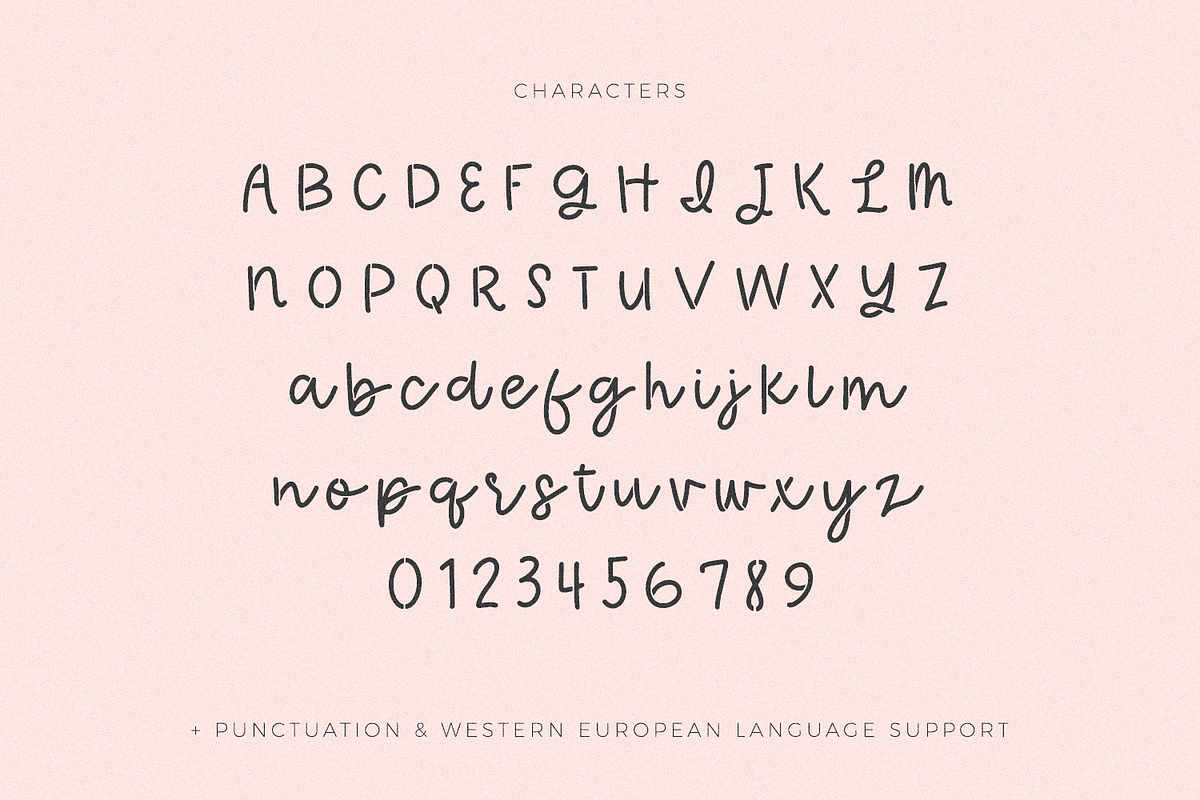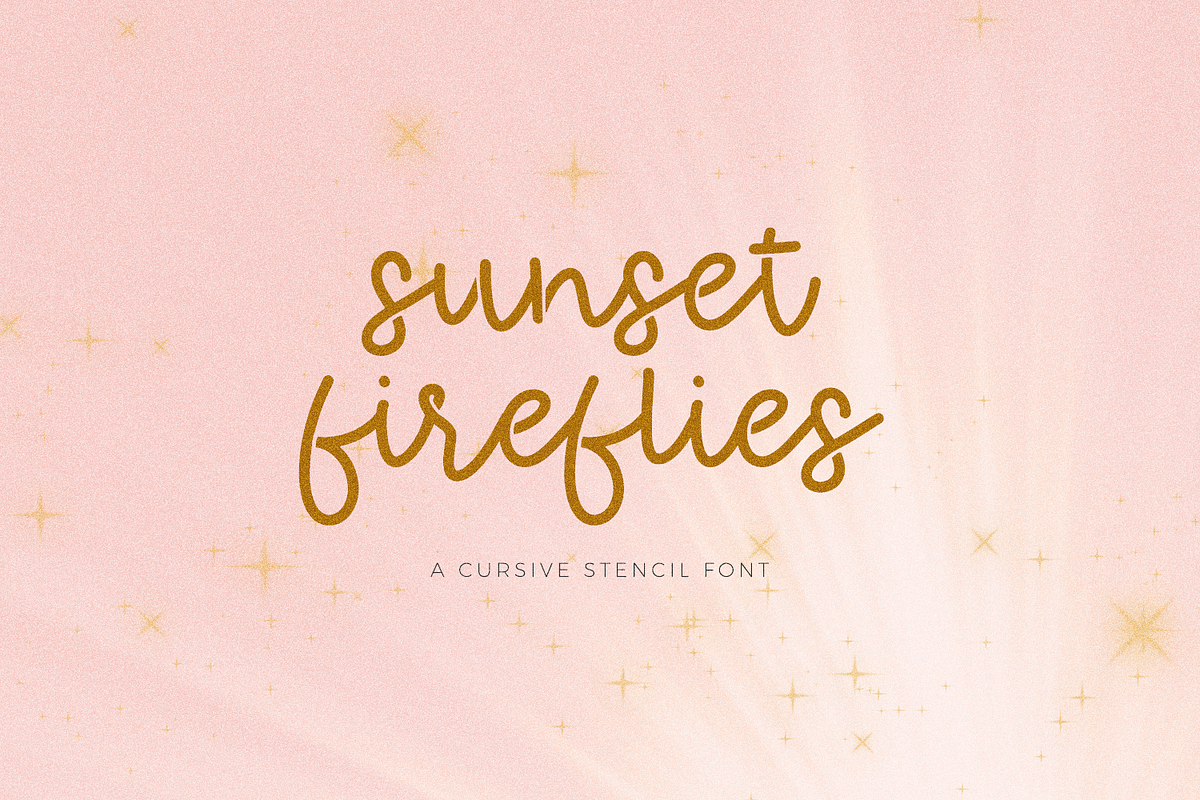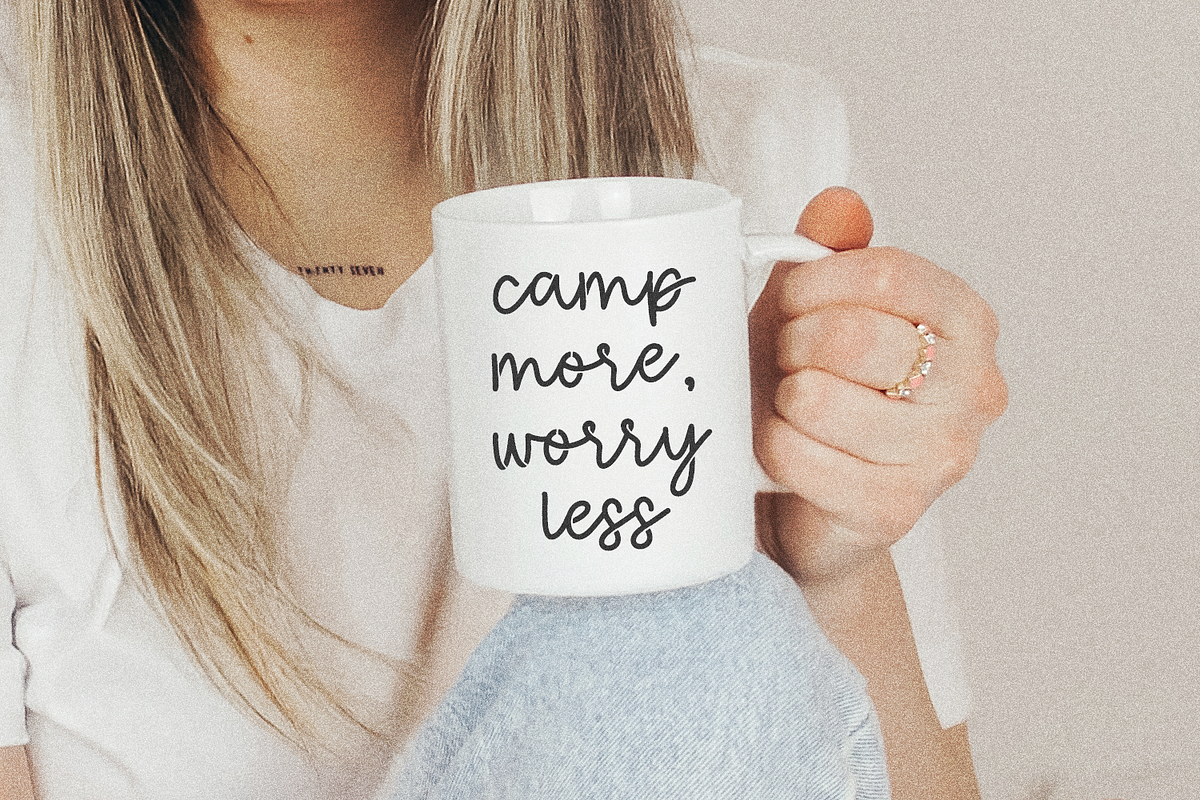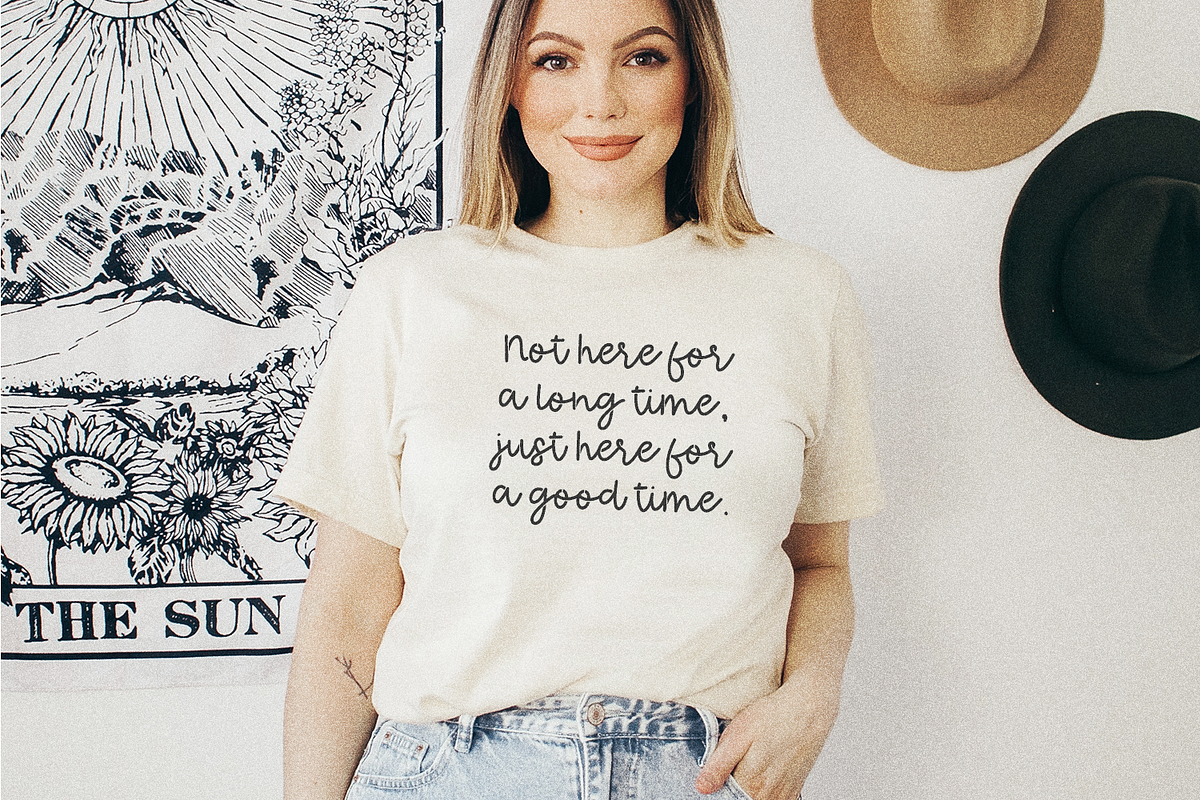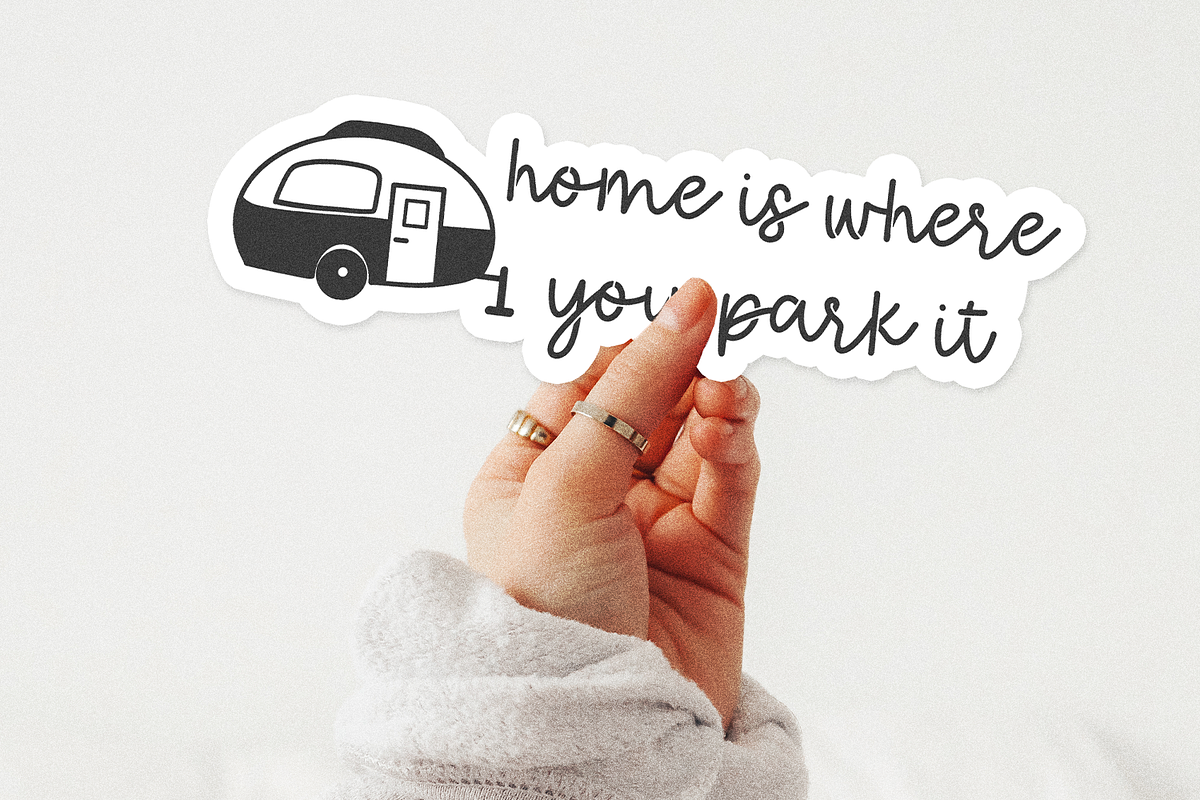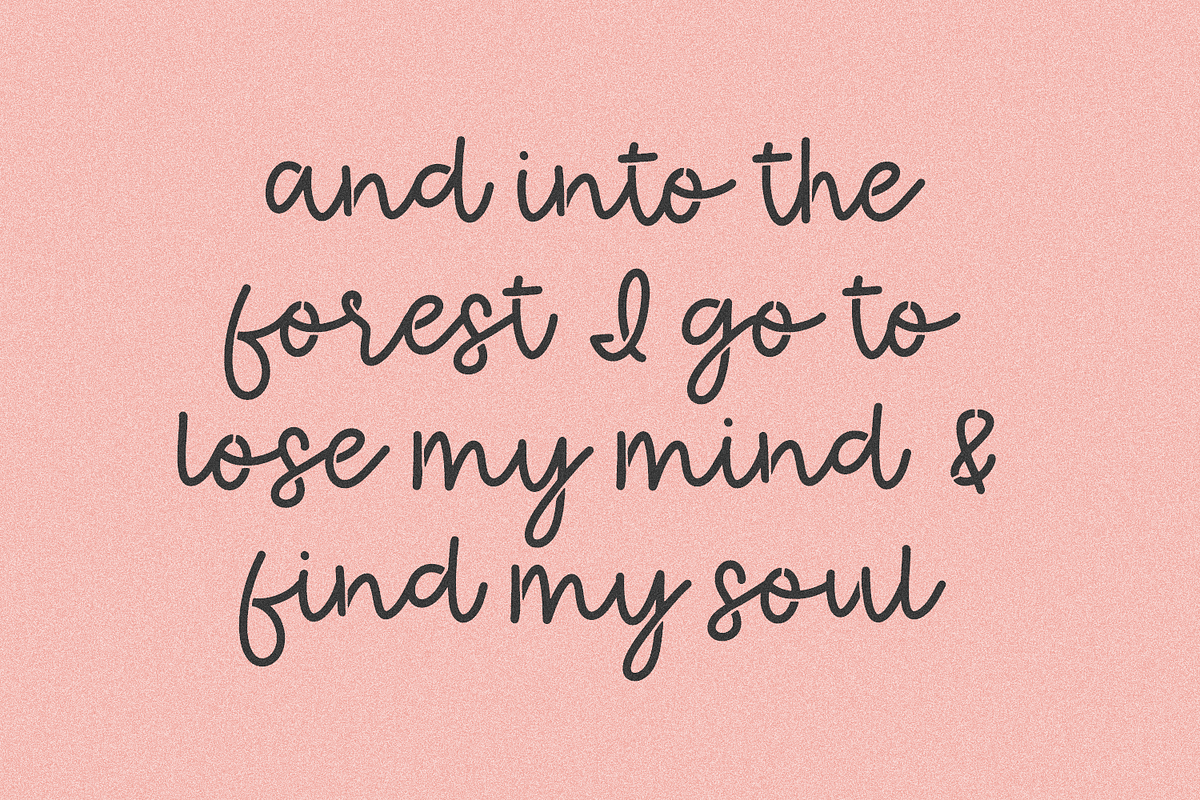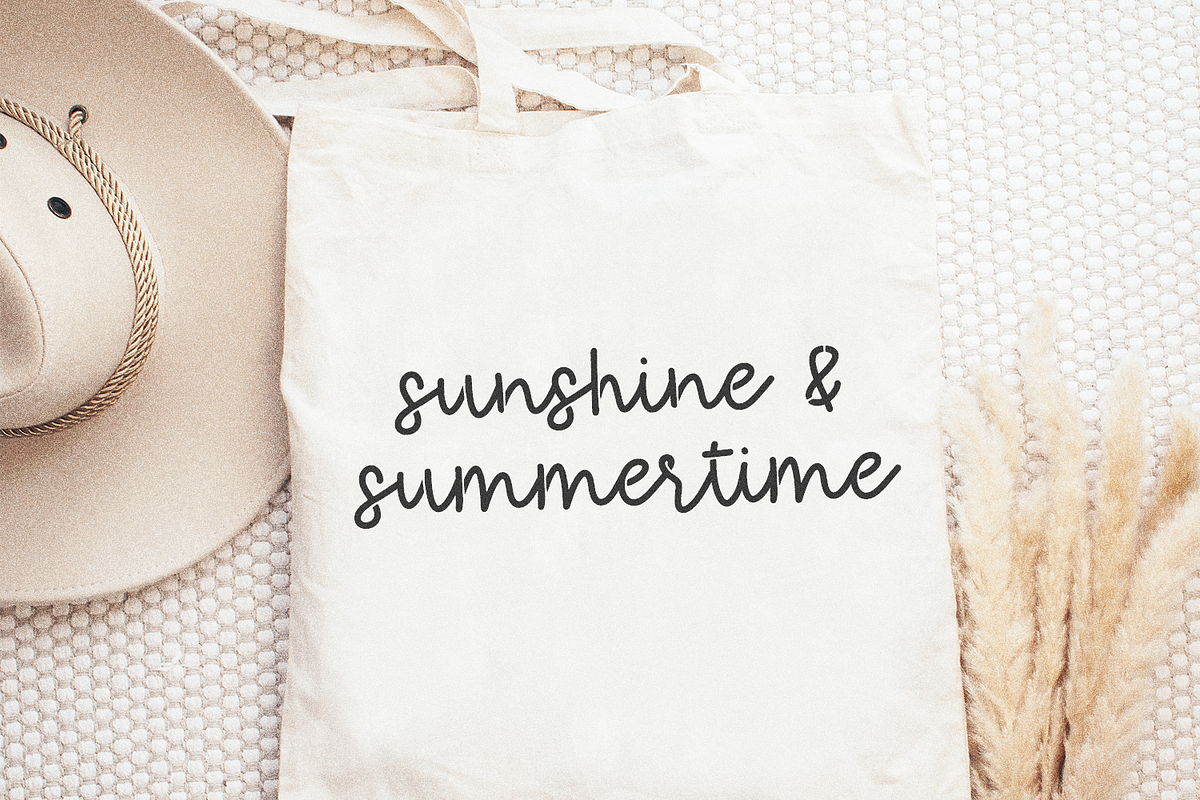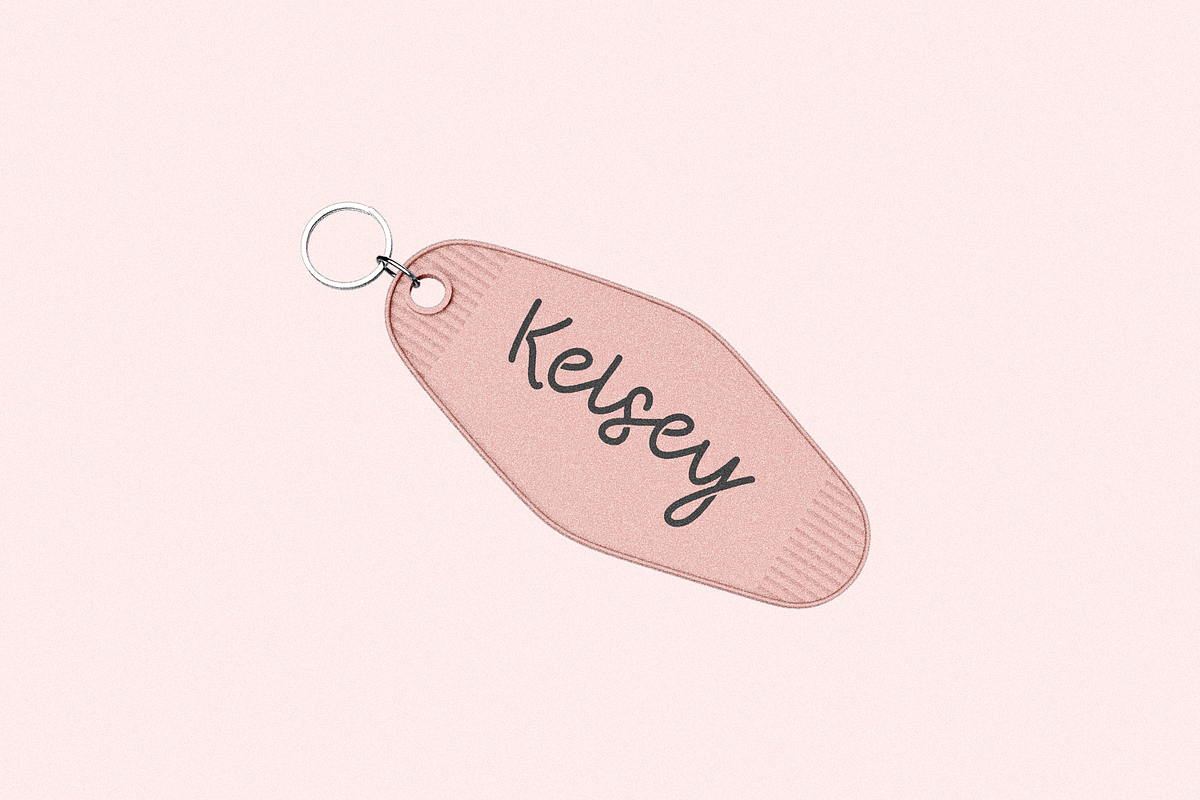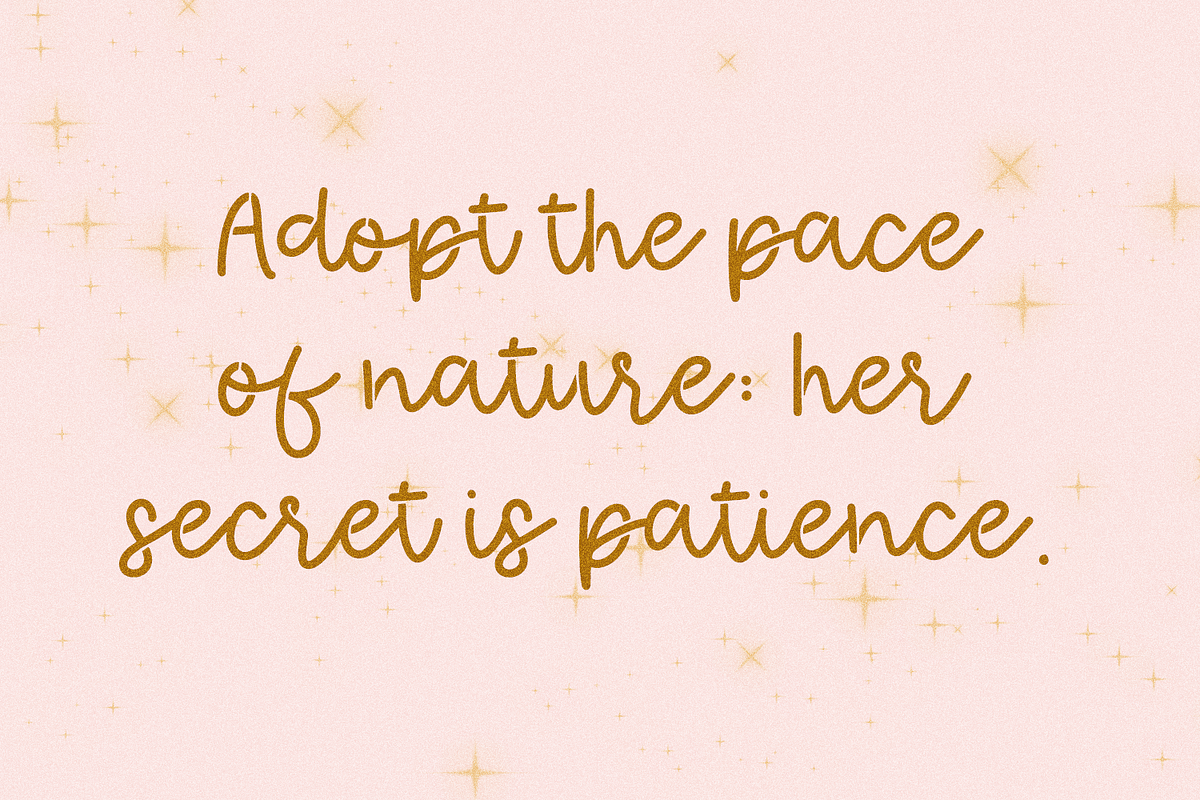
Sunset Fireflies Stencil Font
Sunset Fireflies Script is a stencil-style monoline calligraphy font. This font is perfect for logos & branding, greeting cards, painted banners, digital planners, note-taking apps, Canva, Cricut projects, Silhouette projects, designing SVG files, laser cutting projects, & more.
Sunset Fireflies Script includes:
- full upper + lowercase characters
- numbers + punctuation
- Western European language support - English, French, Spanish, Portuguese (Brazil), Portuguese (Portugal), Italian, German (Germany), German (Austria), Dutch, Danish, Swedish, Norwegian (Bokmål and Nynorsk), Finnish, Icelandic, Irish, Welsh